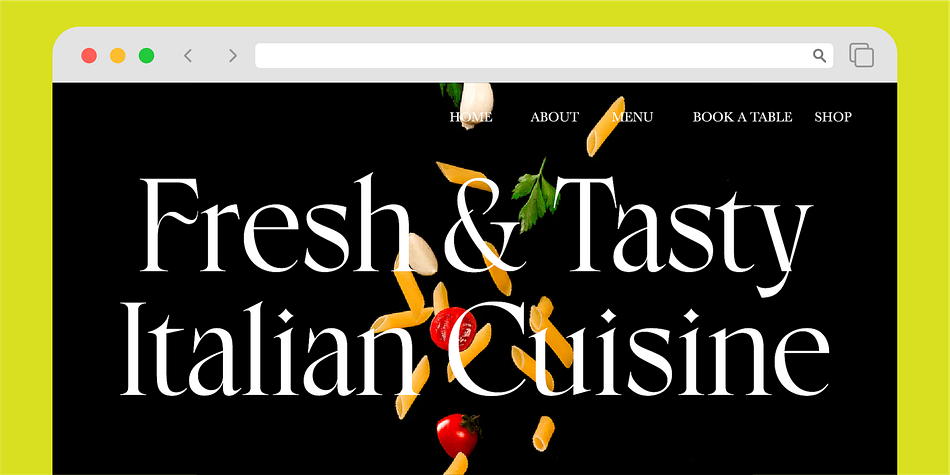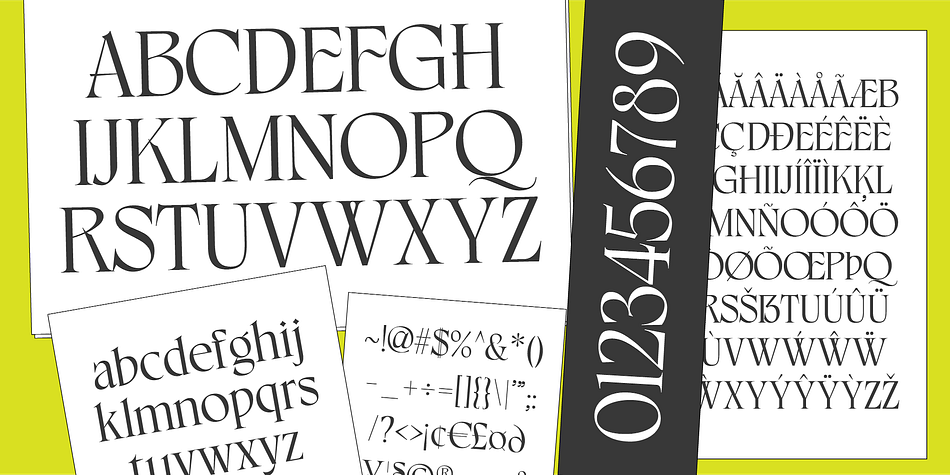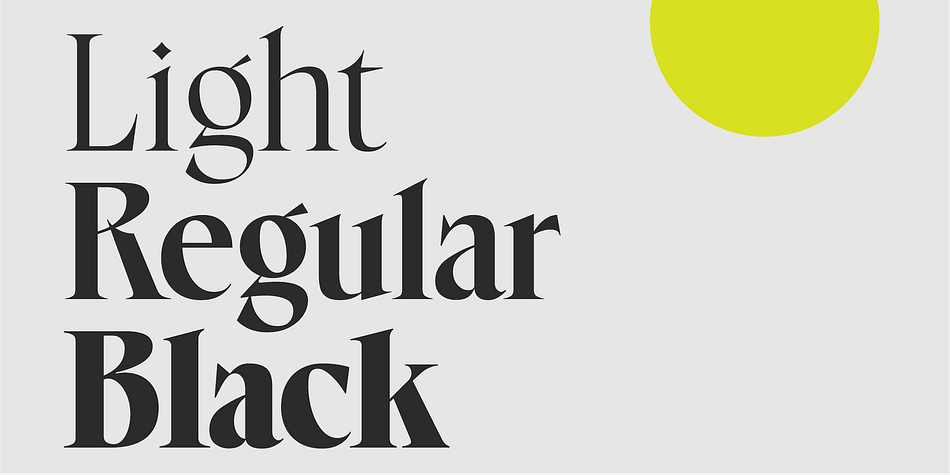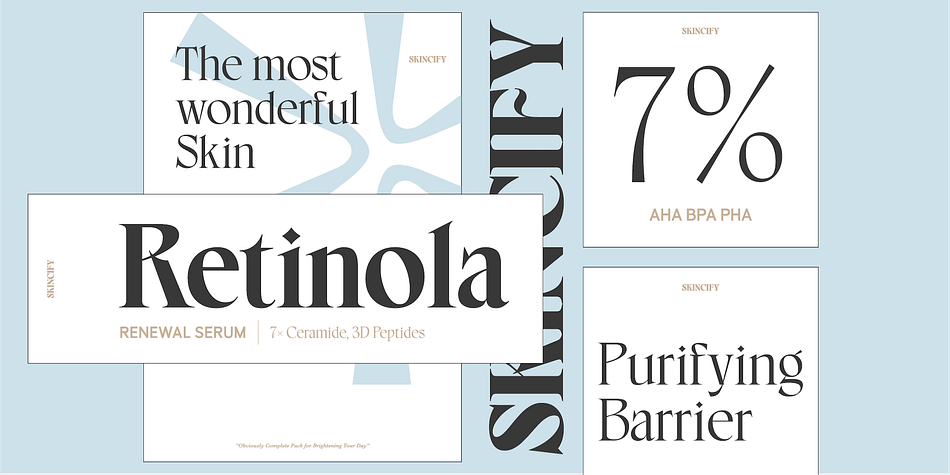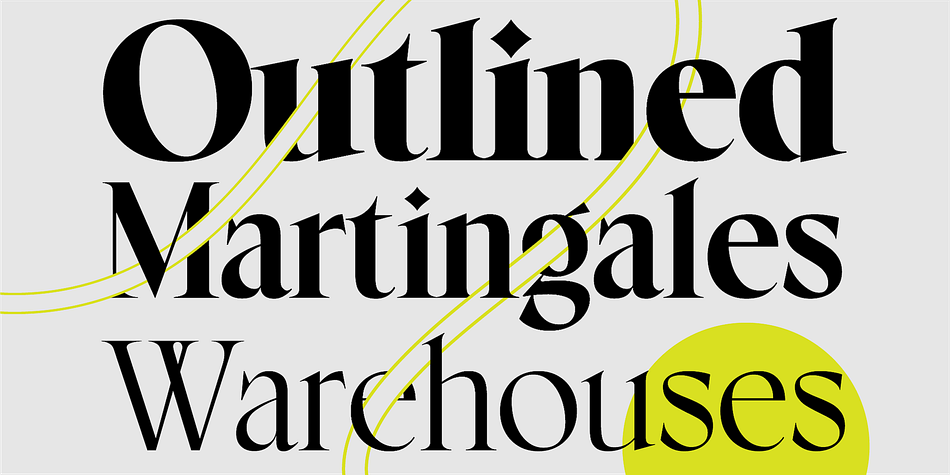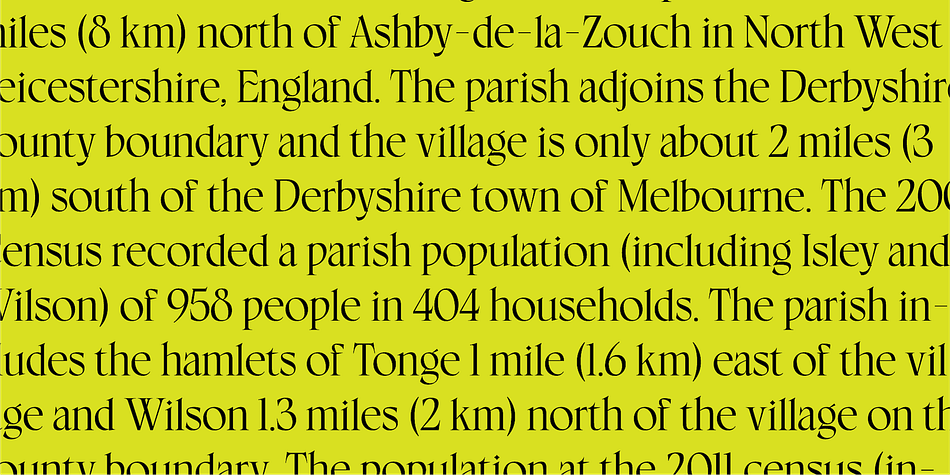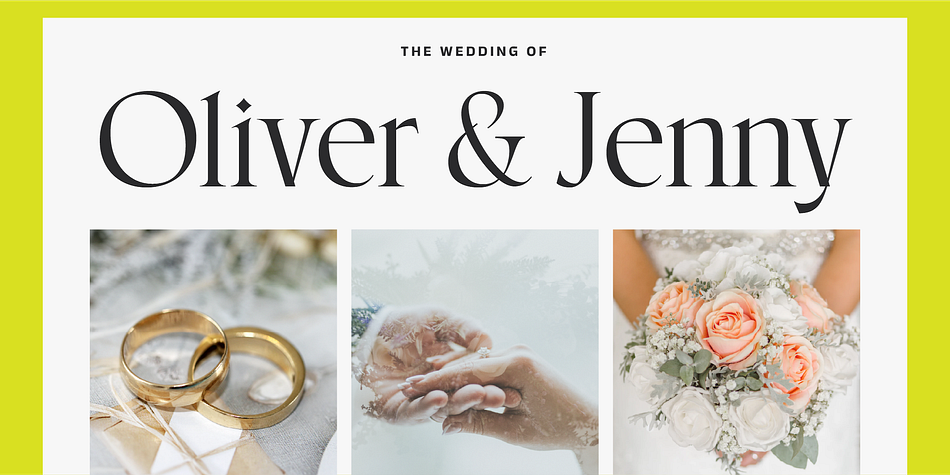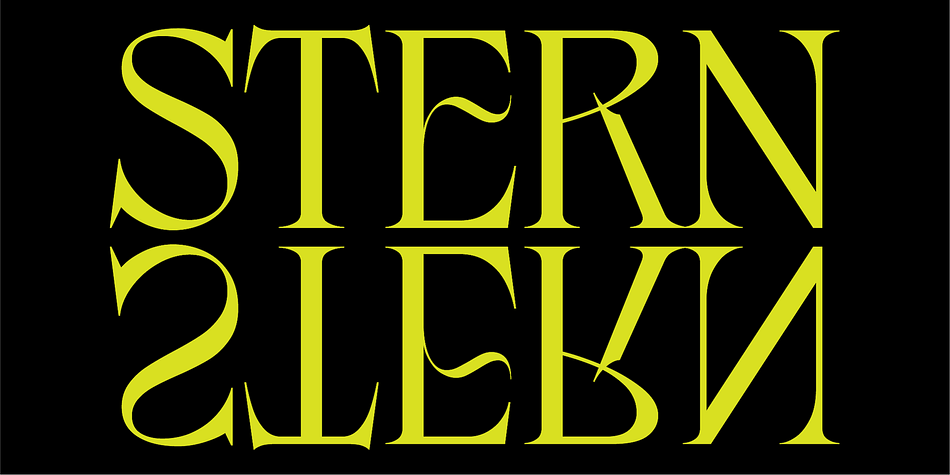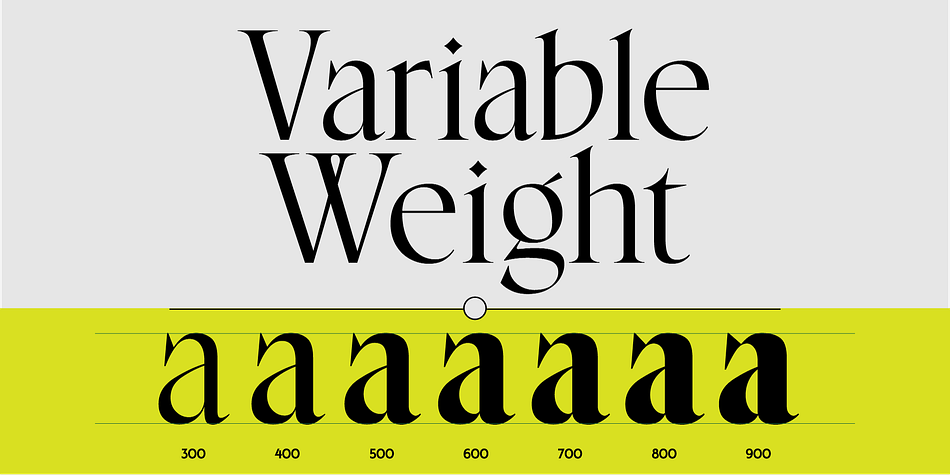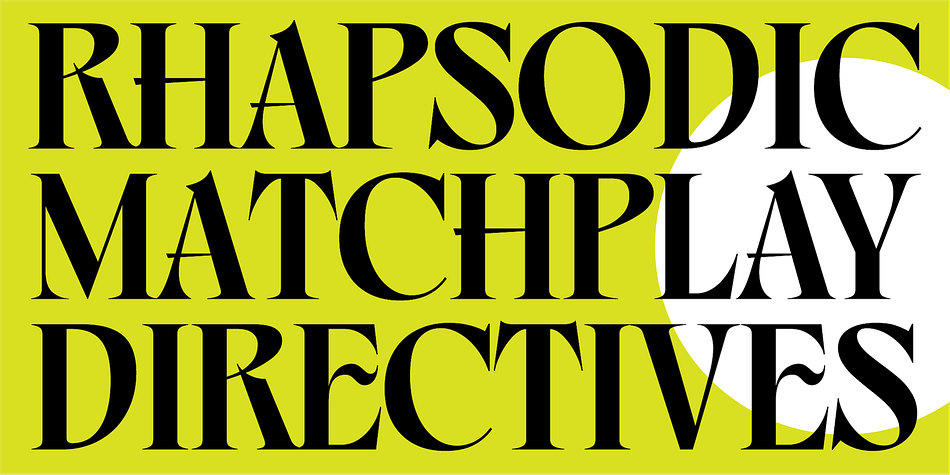
Belma
Belma is a display serif and serif font family. This typeface has eight styles and was published by AF Studio.
Introducing Belma, designed with a stylish serif that exudes elegance, modernity, and minimalism. Belma are crafted to elevate your design and bring a touch of sophistication to your creations. Belma is perfect for display, poster, logo, and any design that requires a bold, larger text. With its clean lines and minimalist aesthetic, the font is both timeless and contemporary, making it suitable for a wide range of applications.
The elegant serifs and modern design combine seamlessly to create a truly breathtaking font collection that will enhance any design project. Whether you’re designing a poster for a music festival or creating a logo for a luxury brand, these fonts will add a touch of class and refinement to your work.